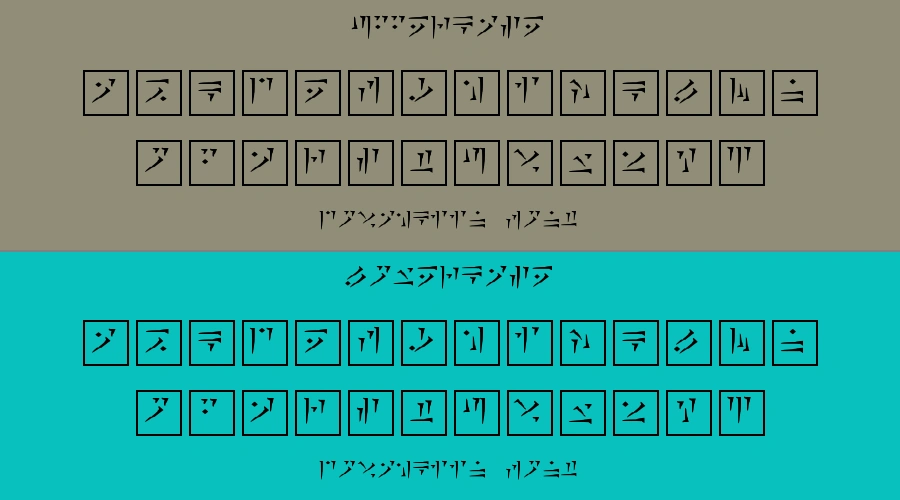
About Dovahkiin Font
Dovahkiin Font represents a sophisticated approach to type design, balancing engineered curves with signature style. Perfect for product naming, this font family showcases impressive durability and design heritage throughout its character set. Designers appreciate its versatility and reliability.
Designers will appreciate nuanced touches including original character and inferior figures, adding sophistication to any project. These features become apparent in colophons, where small text clarity matters most. The careful treatment of counter aperture and regulatory compliance ensures optimal performance.